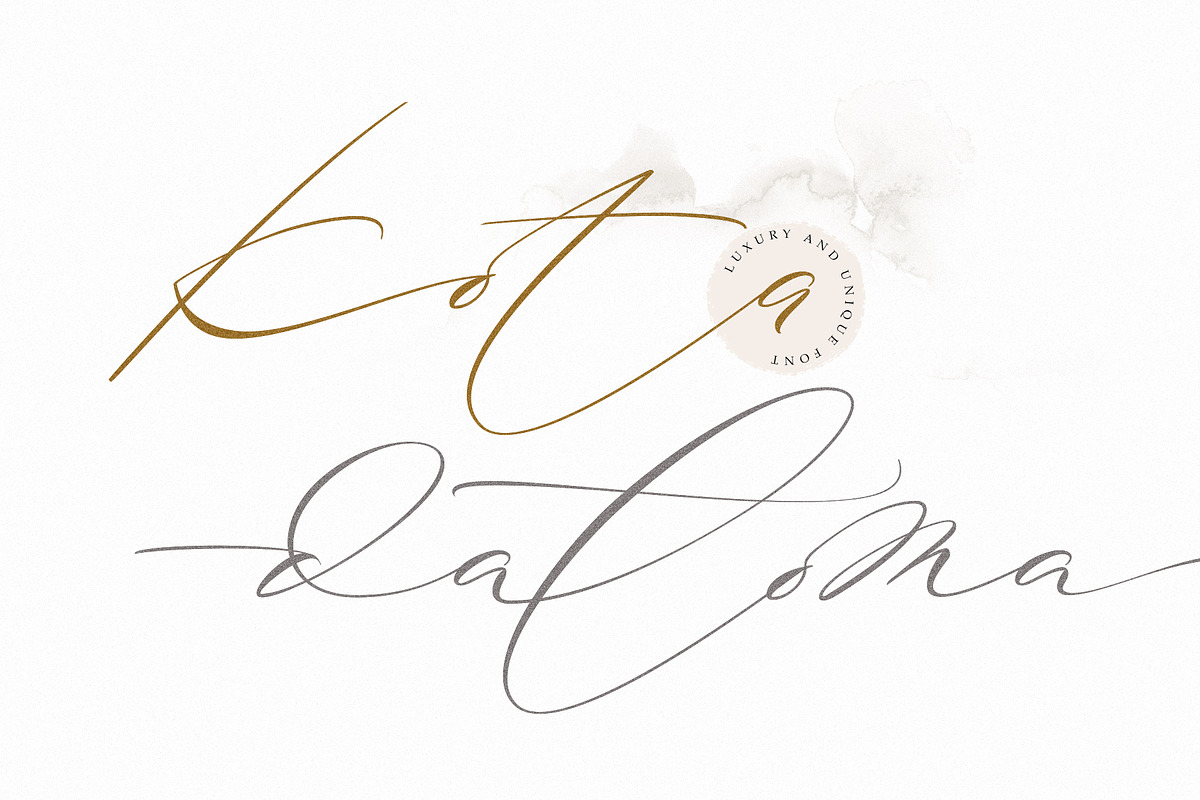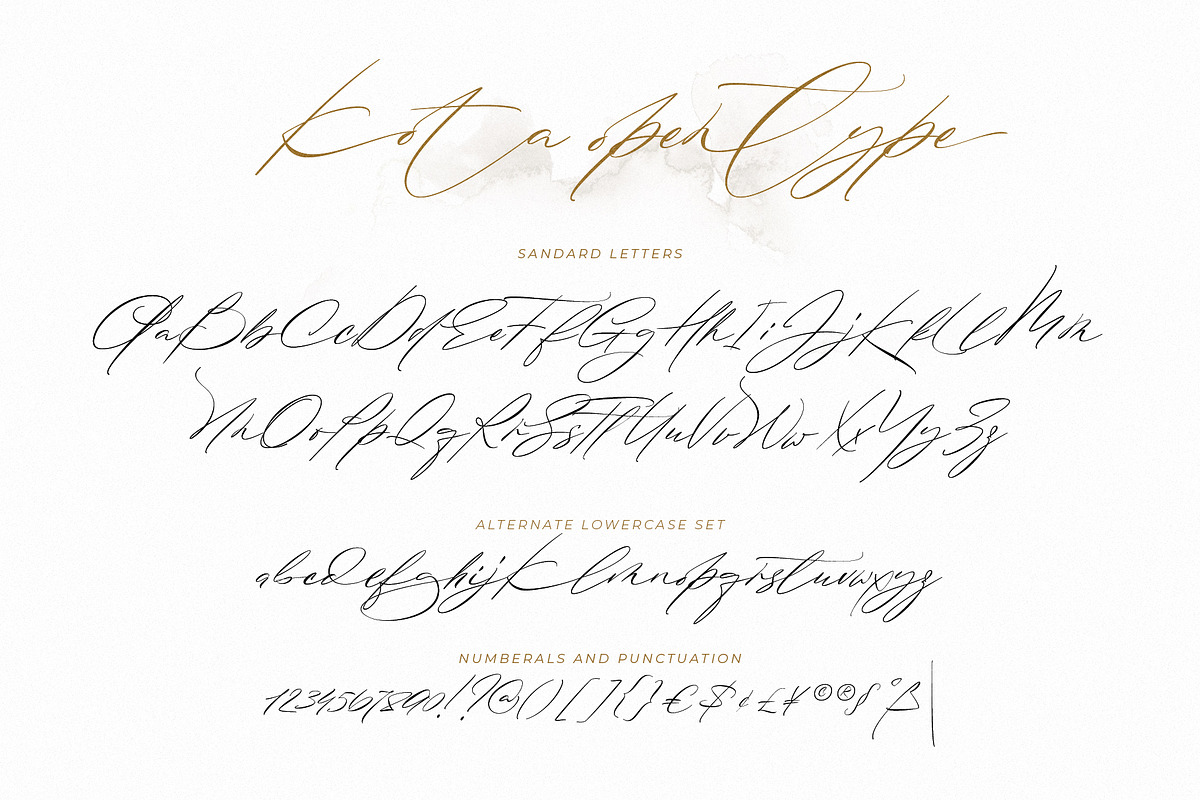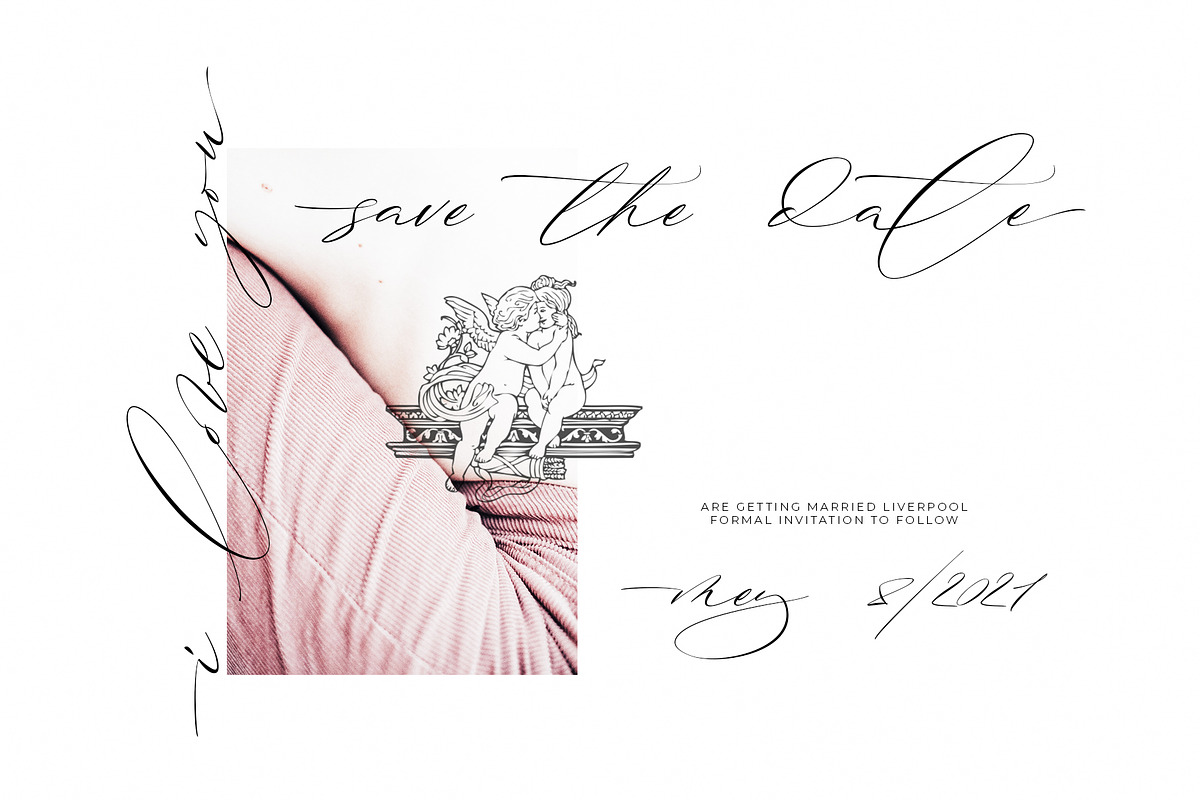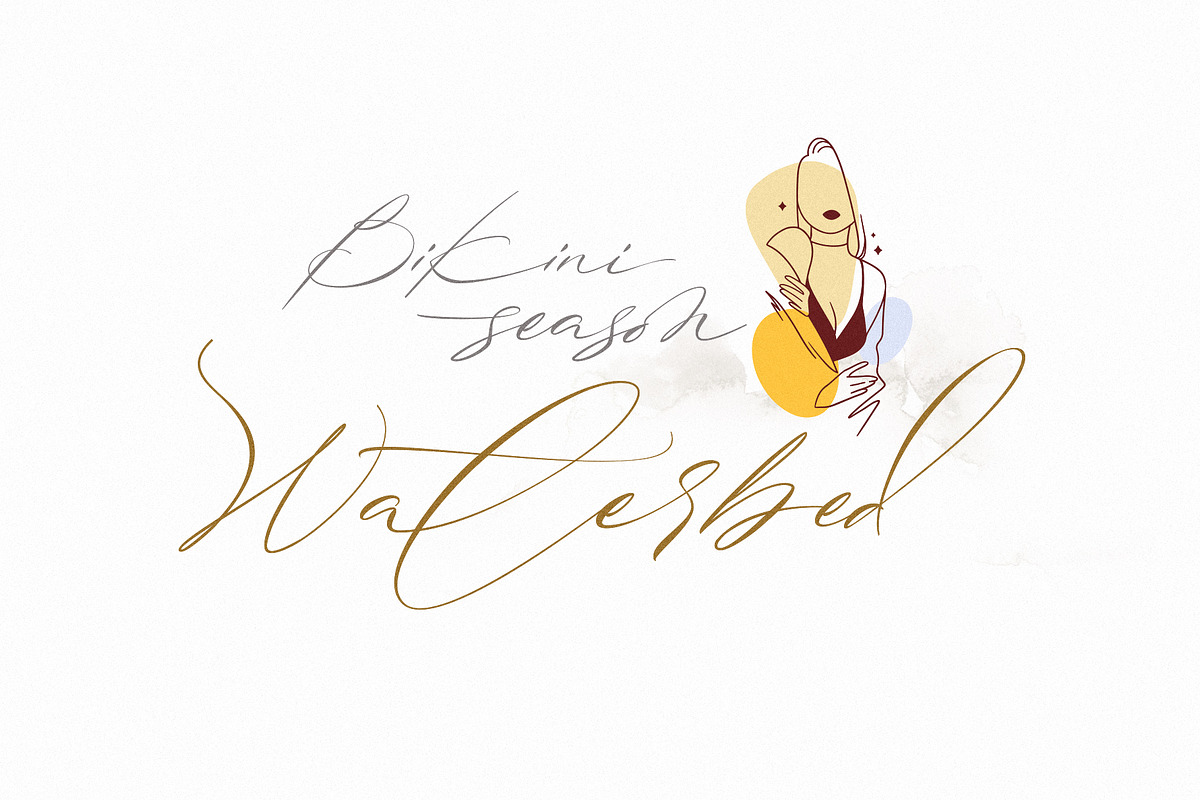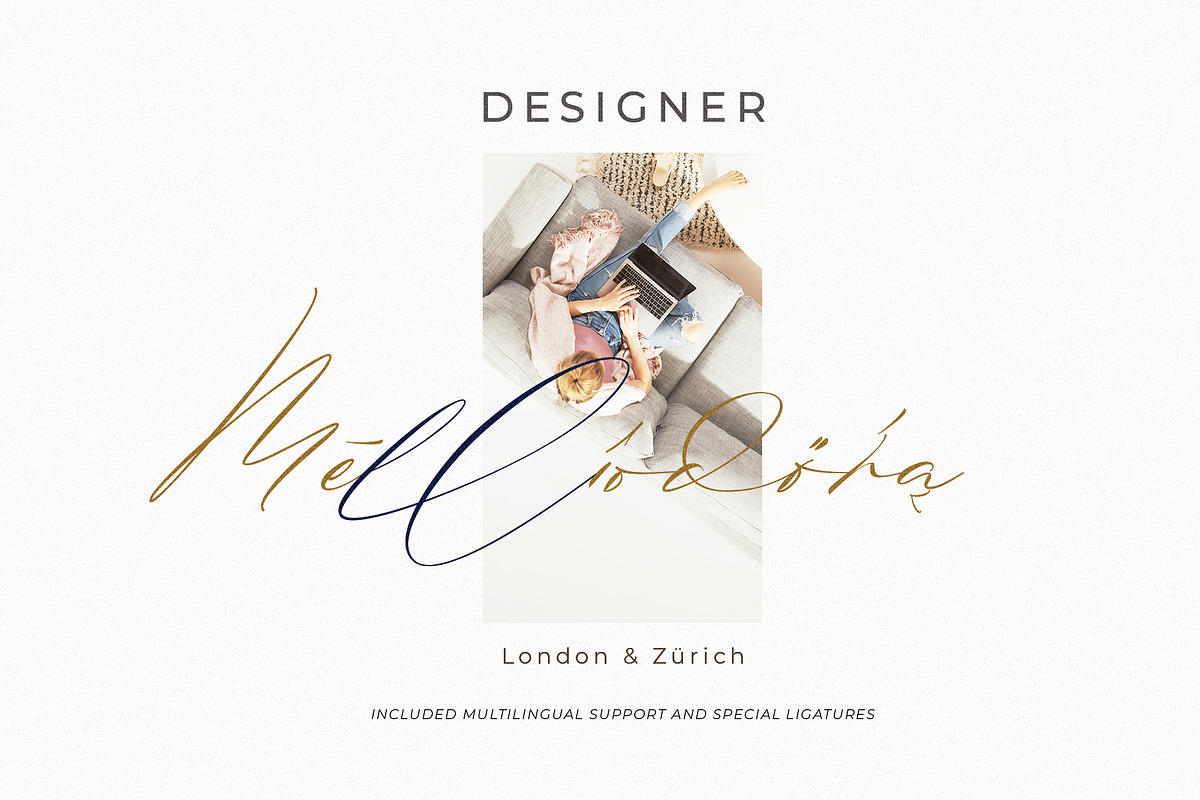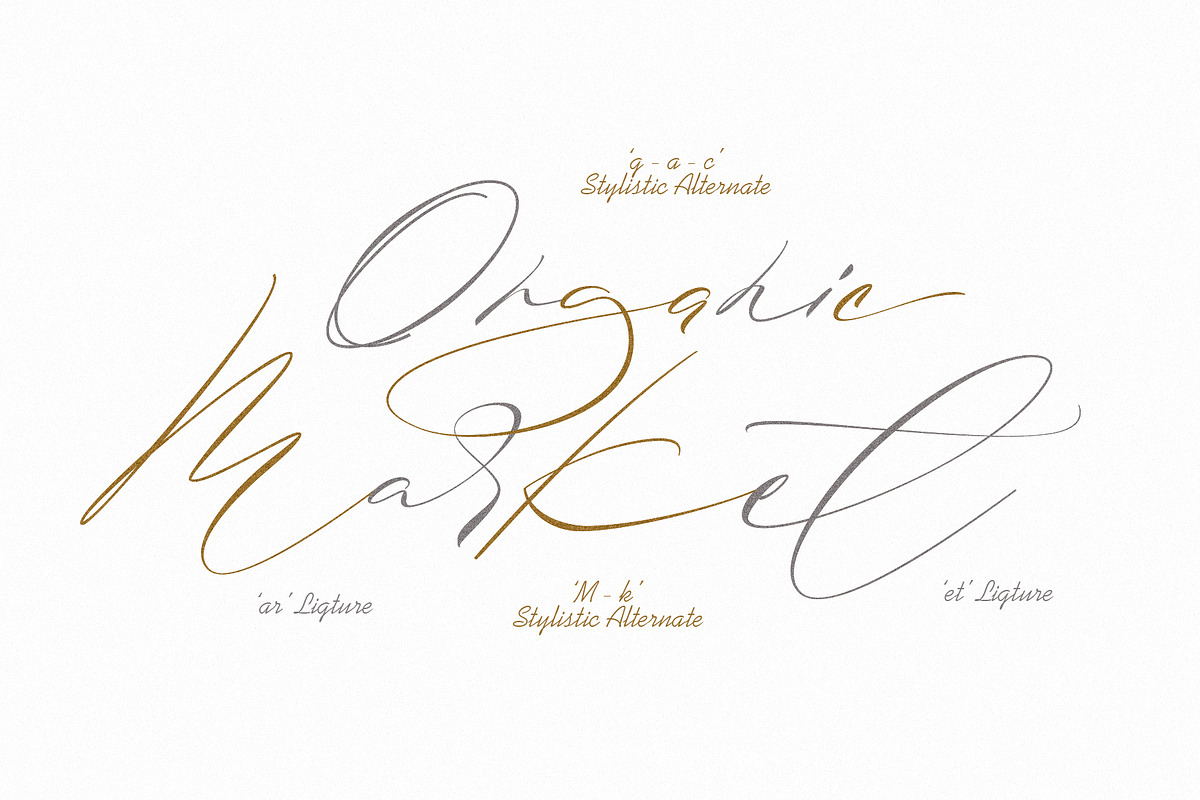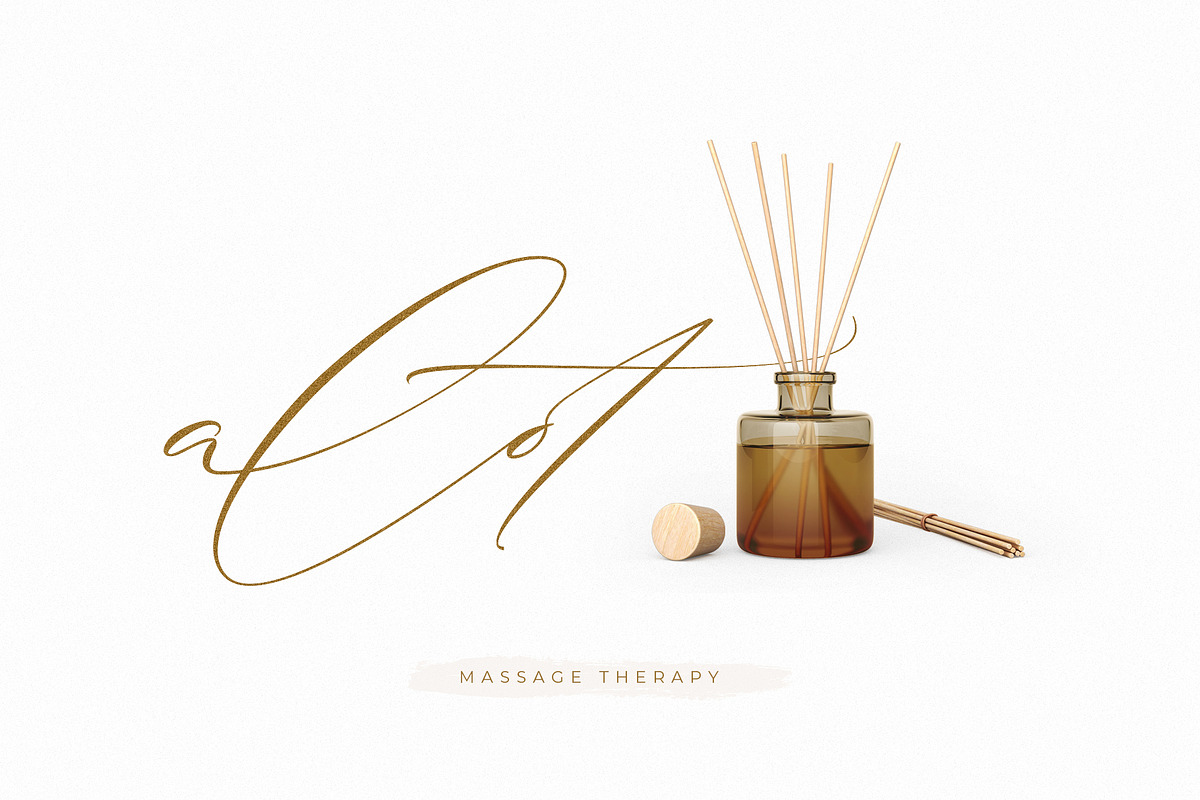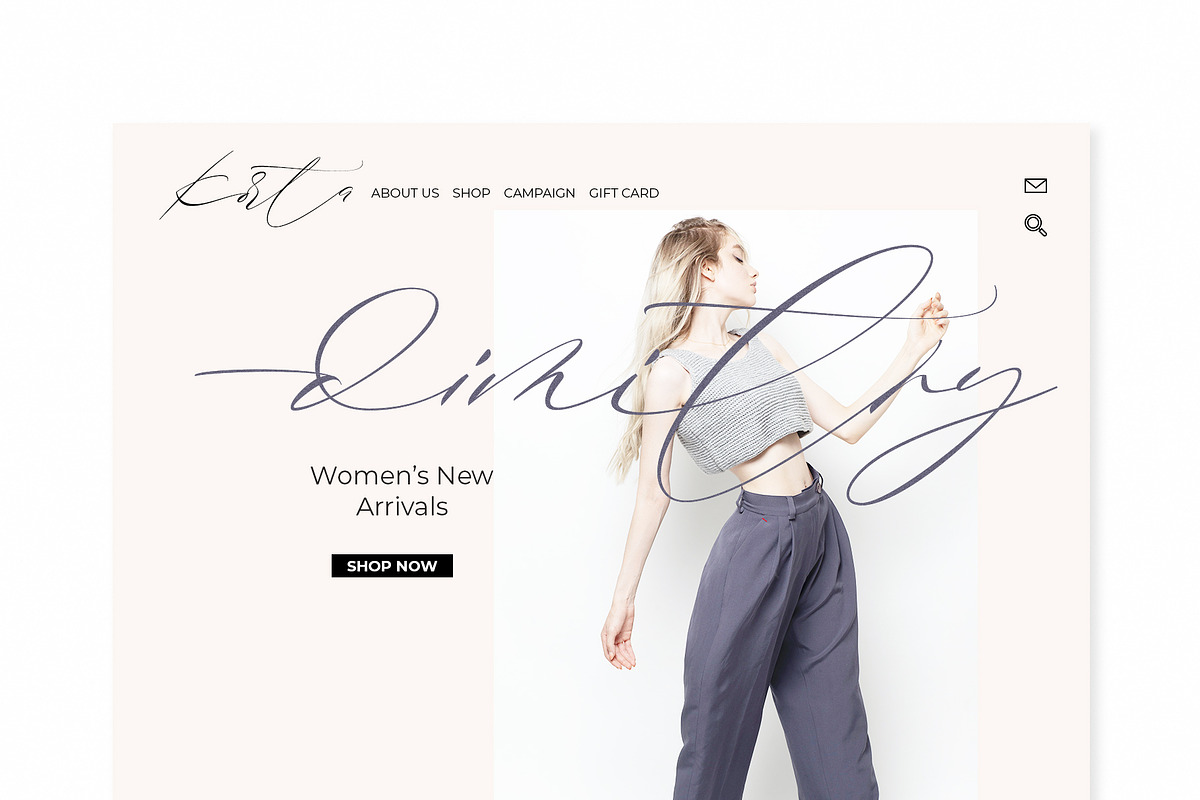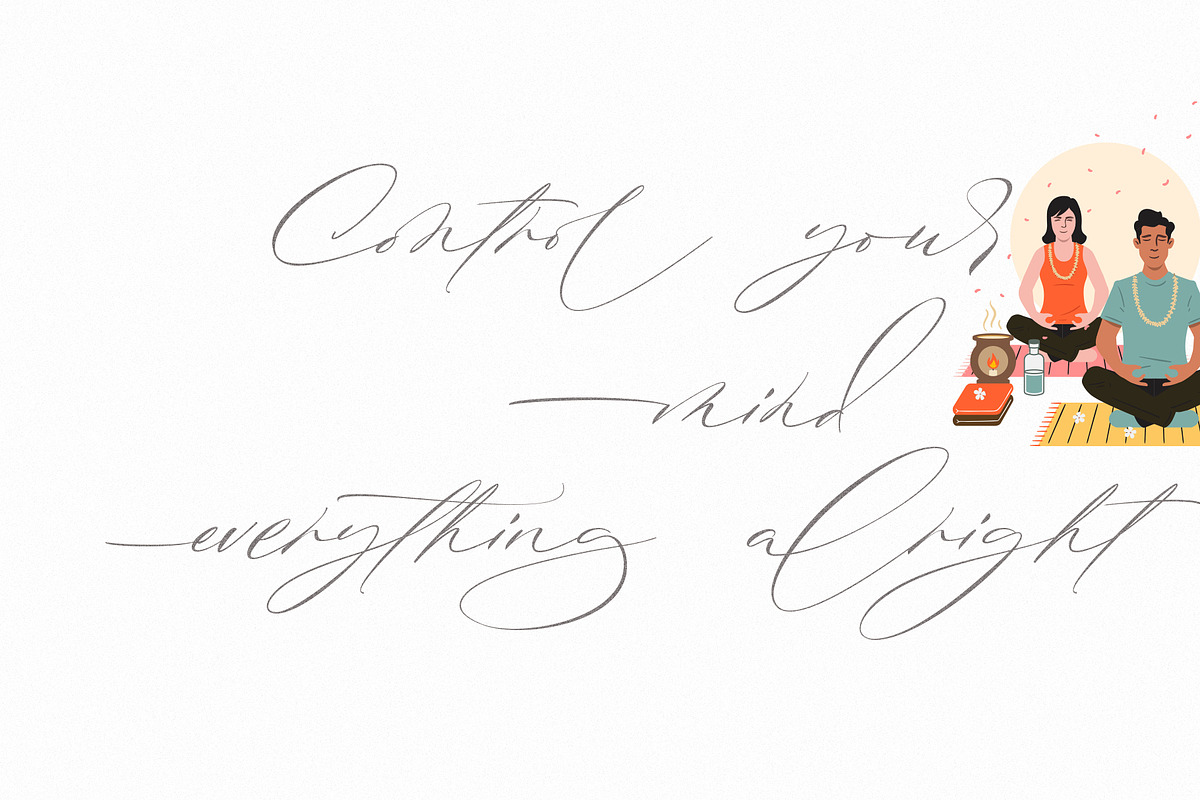
Kota datoma | luxury & Unique Font
Kota datoma an luxury and unique calligraphy font. Carefully designed to work together in harmony that makes it perfect for wedding media, book covers, greeting cards, logos, branding, business cards and certificates, even for any design work that requires unique, formal or luxury.
Try Kota datoma, enjoy the richness of OpenType features and let her fun and elegant excitement make you happy and enhance your creativity! You can use this font very easily.
Included Multilingual Support And Special Ligatures